2 Google Fonts Similar to Copperplate
Copperplate was originally designed in 1901. It is a reflection of the Gothic style in that time era. It is an all caps font which makes it a good option for headlines. It feels sturdy yet elegant.
Since the font is so unique, it was difficult to find something similar.
So after digging throughout all the fonts on Google, I believe that I was able to find two decent looking alternatives.
What Google Fonts are Similar to Copperplate?
The best Google Font alternatives for Copperplate are:
- Balthazar
- Alegreya SC
Both of these fonts are pretty similar to Copperplate and would work as a decent alternative.
So let's cover some of their differences and similarities.
Balthazar
Balthazar shares a similar look and feel that Copperplate has. Although it is not an exact replica, they share many similar features.
The main feature they have in common is the wicked out tips of each letter. If this is a style that you are going for then Balthazar would be a good example.
There are minor differences within each one of the letters, but the main one is the width.
The letters in Copperplate are more rounded, while Balthazar are more narrow.
Compare below.
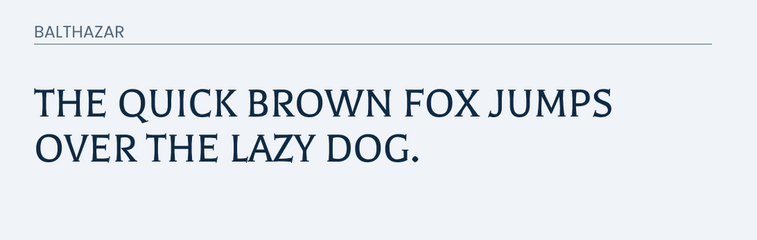
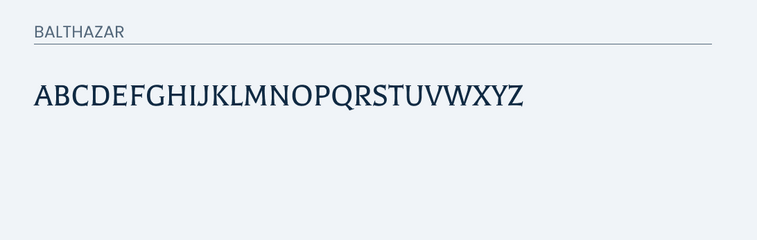
Alegreya SC
Alergreya SC is also another good alternative to Copperplate. It also shares that similar flared tips on all it's letters.
Although they are not exactly alike, they do share a similar look and feel.
Take a look for yourself.
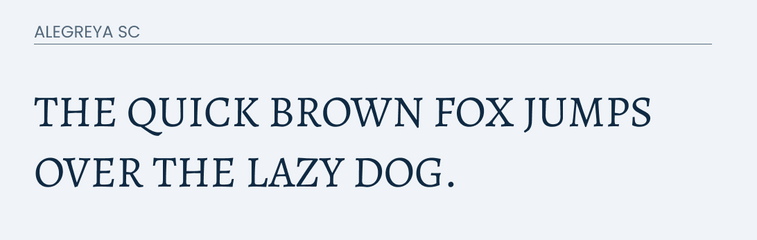
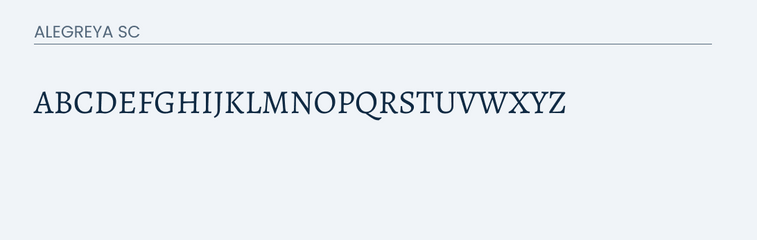
Conclusion
It was tricky to even find a font that was similar looking to Copperplate since it is such a unique font. I believe that you best bet is going to be Balthazar. However, if that one doesn't work then Alegreya SC would be a good second alternative.